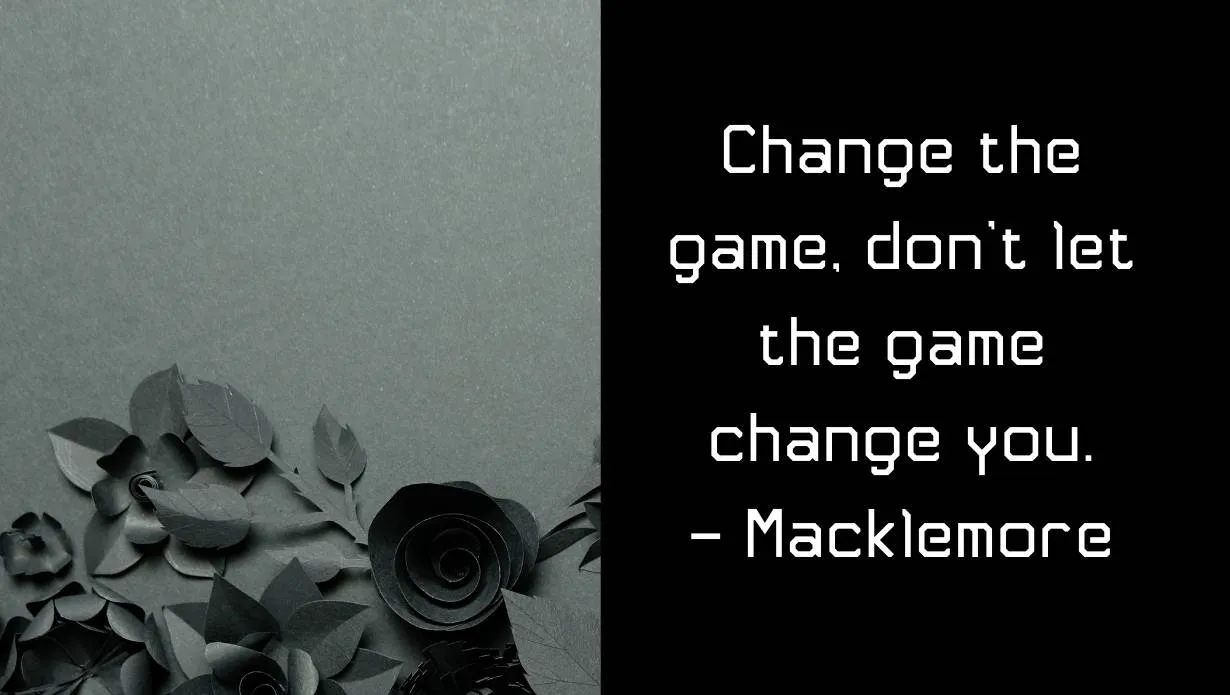
is a new sans serif typeface that has been designed to be used in media. This cozy font was created by Swiss designer Adrian Frutiger and SAM, who is best known for his work on the Univers and Frutiger typefaces. This cute Font is available in four weights these are light, regular, bold, and black.
Neosteel Font Family
| Name | Neosteel Font |
| Designer | Adrian Frutiger and SAM |
| Style | Sans seirf |